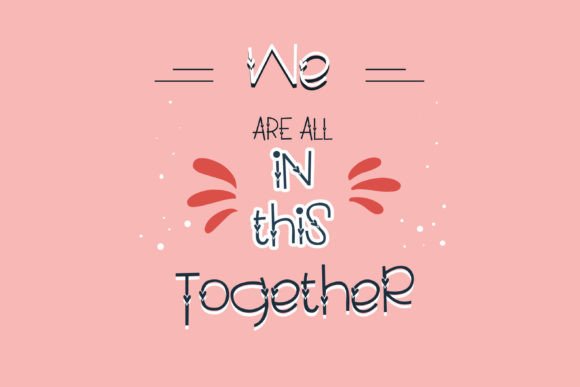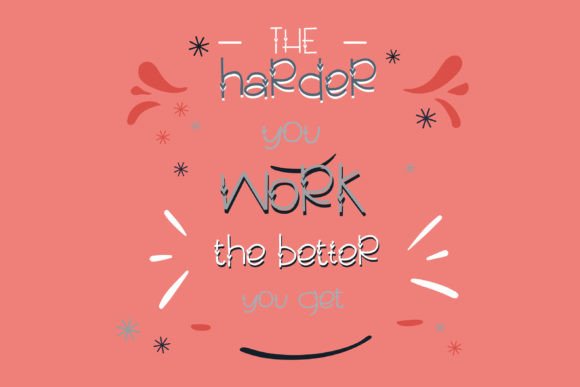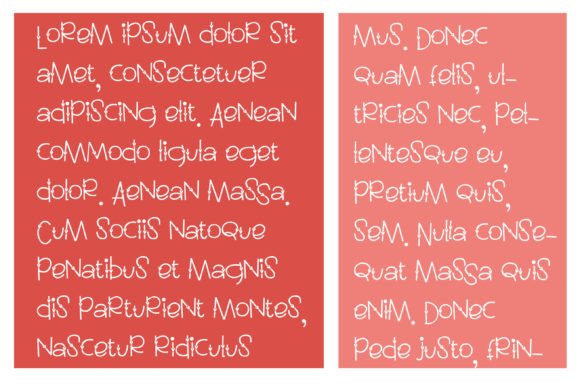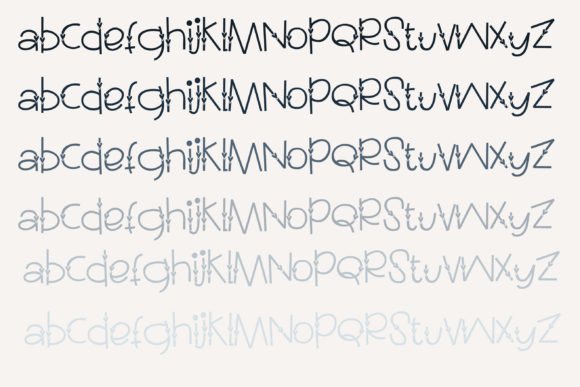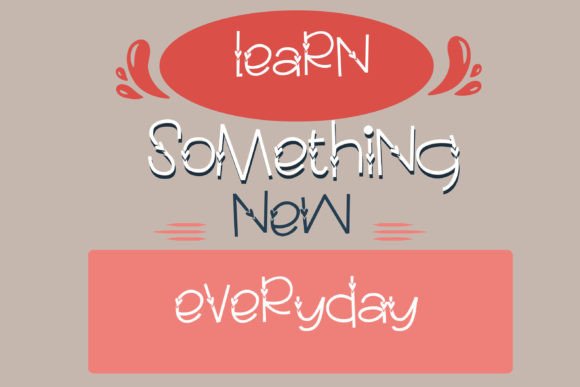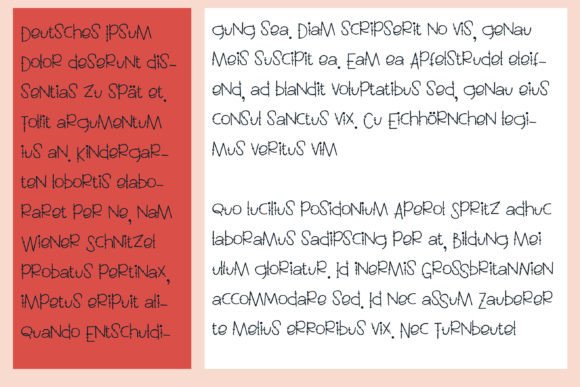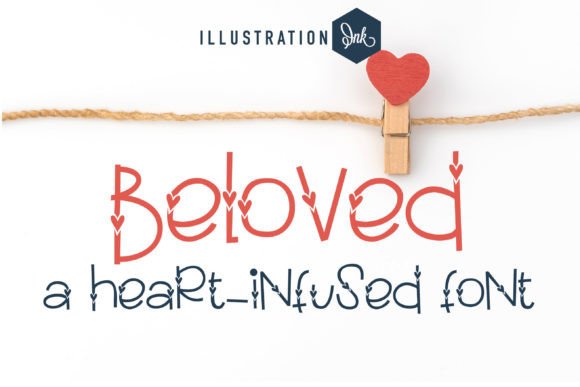
Introducing Beloved Font: The Ultimate Addition to Your Romantic Designs
Are you looking for a way to add a touch of romance to your designs? Look no further than Beloved Font, a lovely handwritten font featuring tiny hearts inside each character. This beautiful font is ideal for Valentine’s Day designs, wedding invitations, and love-themed projects, making it a must-have for designers and crafters alike.
The Story Behind Beloved Font
Beloved Font was created with love and care to bring a touch of whimsy and romance to your designs. The font features delicate, handwritten characters with tiny hearts woven throughout, giving it a playful and charming feel. Whether you’re designing a wedding invitation, a Valentine’s Day card, or a love-themed craft project, Beloved Font is the perfect choice.
Key Features of Beloved Font
- Handwritten characters: Beloved Font features beautiful, handwritten characters that add a personal touch to your designs.
- Tiny hearts: Each character in the font features a tiny heart, adding a touch of romance and whimsy to your designs.
- Perfect for love-themed projects: Whether you’re designing a wedding invitation, a Valentine’s Day card, or a love-themed craft project, Beloved Font is the perfect choice.
Uses for Beloved Font
Beloved Font is versatile and can be used for a variety of projects, including:
- Wedding invitations: Add a touch of romance to your wedding invitations with Beloved Font.
- Valentine’s Day designs: Create beautiful Valentine’s Day cards, posters, and social media graphics with Beloved Font.
- Love-themed craft projects: Use Beloved Font to add a personal touch to your love-themed craft projects, such as scrapbook pages, journal entries, and handmade cards.
- Social media graphics: Use Beloved Font to create beautiful social media graphics, such as Facebook posts, Instagram stories, and Twitter headers.
Tips for Using Beloved Font
Here are a few tips for using Beloved Font in your designs:
- Pair with other fonts: Pair Beloved Font with other fonts to create a unique and interesting look.
- Experiment with colors: Experiment with different colors to find the perfect combination for your design.
- Add graphics and images: Add graphics and images to your design to make it more visually interesting.
- Keep it simple: Don’t overcomplicate your design. Keep it simple and let Beloved Font be the star of the show.
Beloved Font is a beautiful and versatile font that adds a touch of romance to any design. With its delicate, handwritten characters and tiny hearts, it’s the perfect choice for Valentine’s Day designs, wedding invitations, and love-themed projects. Whether you’re a designer or a crafter, Beloved Font is a must-have addition to your font collection.